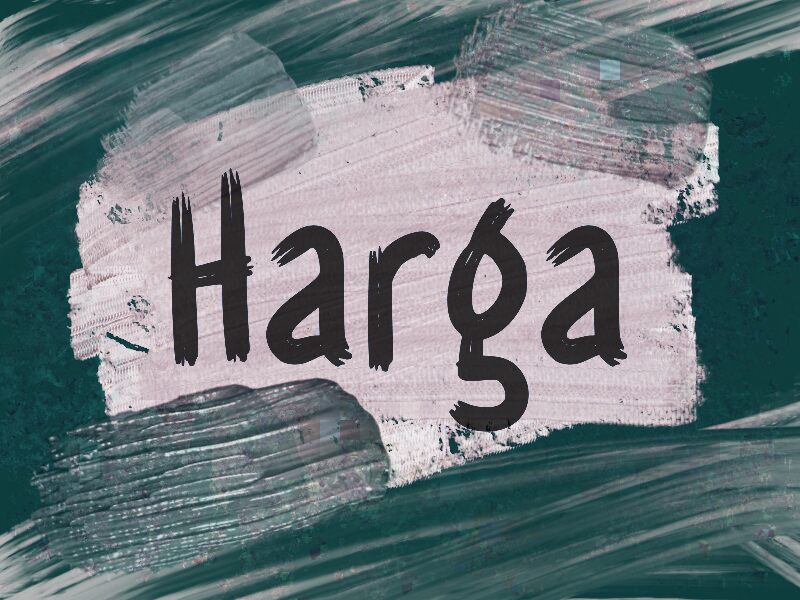
Harga
Harga font by wep is a playful brush typeface with expressive handwriting and energetic strokes. Its casual, artistic look makes it an ideal choice for both unconventional texts and headings. The condensed style and friendly vibe make this free font suitable for posters, advertisements, branding projects, and anywhere else that needs a touch of creativity.
Enjoy applying it to packaging design, children’s books covers, logo design, infographics materials such as leaflets or brochures, animated video typography elements in videos or games interface display purposes.